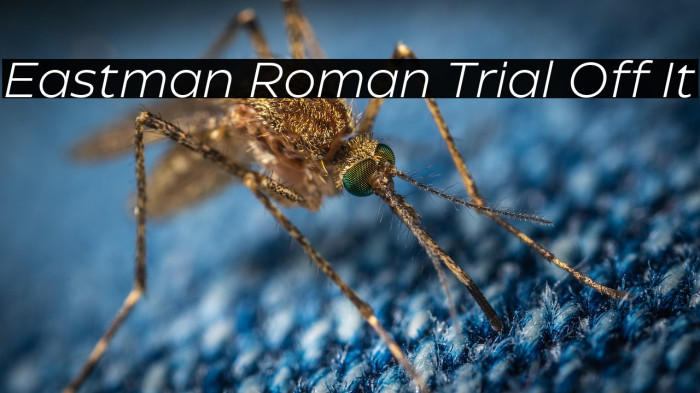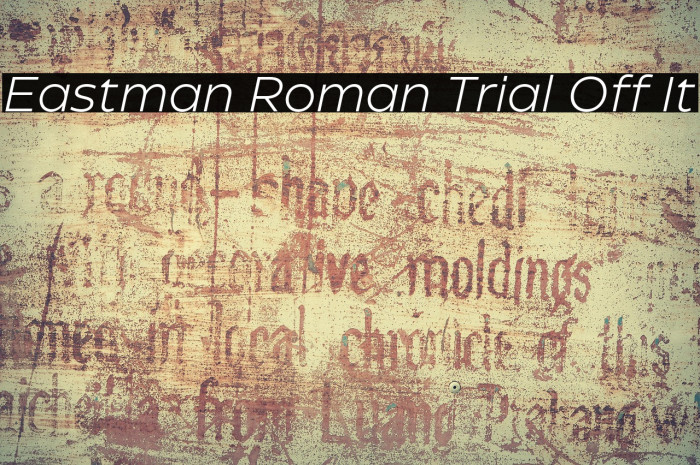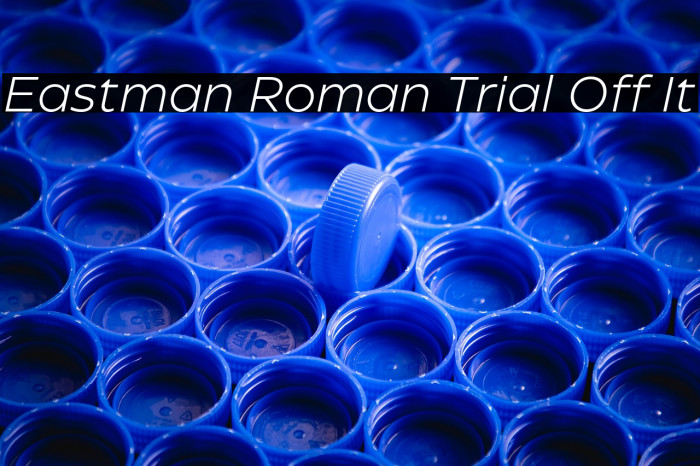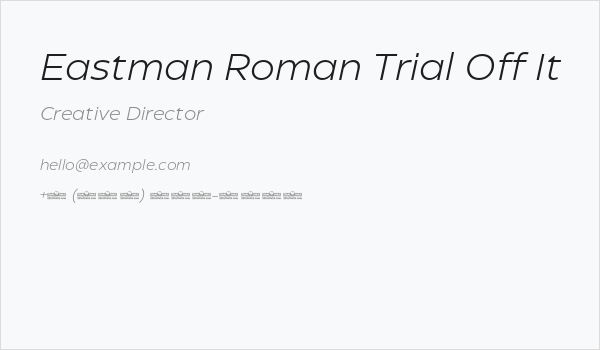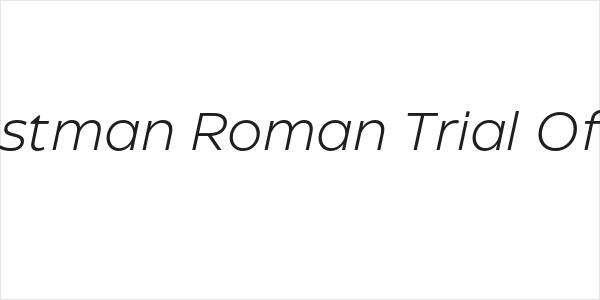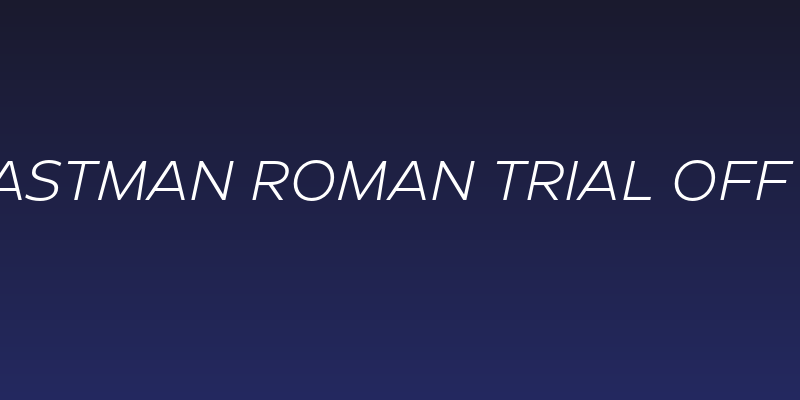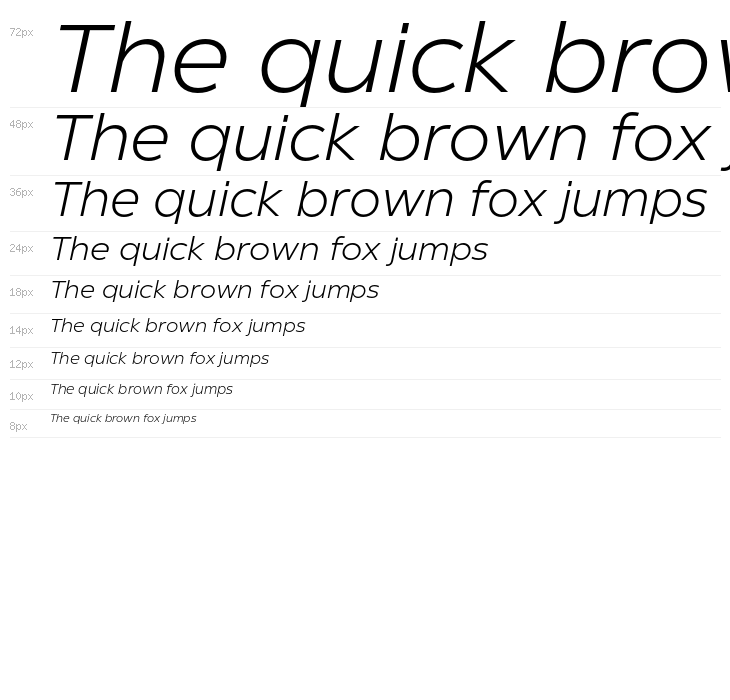
Eastman Roman Trial Off It Font
Eastman Roman Trial Off It Description
This font features a sleek and modern design with clean lines and a minimalist aesthetic. The letters are slightly italicized, giving a sense of motion and elegance. The uppercase and lowercase characters maintain a consistent style, with smooth curves and balanced proportions. The numerals and special characters are designed to complement the alphabet, ensuring a cohesive look across all text. This font's simplicity and clarity make it versatile for various design applications.
| Proposed Projects | Ideal for branding, editorial design, and digital interfaces where a modern and clean aesthetic is desired. |